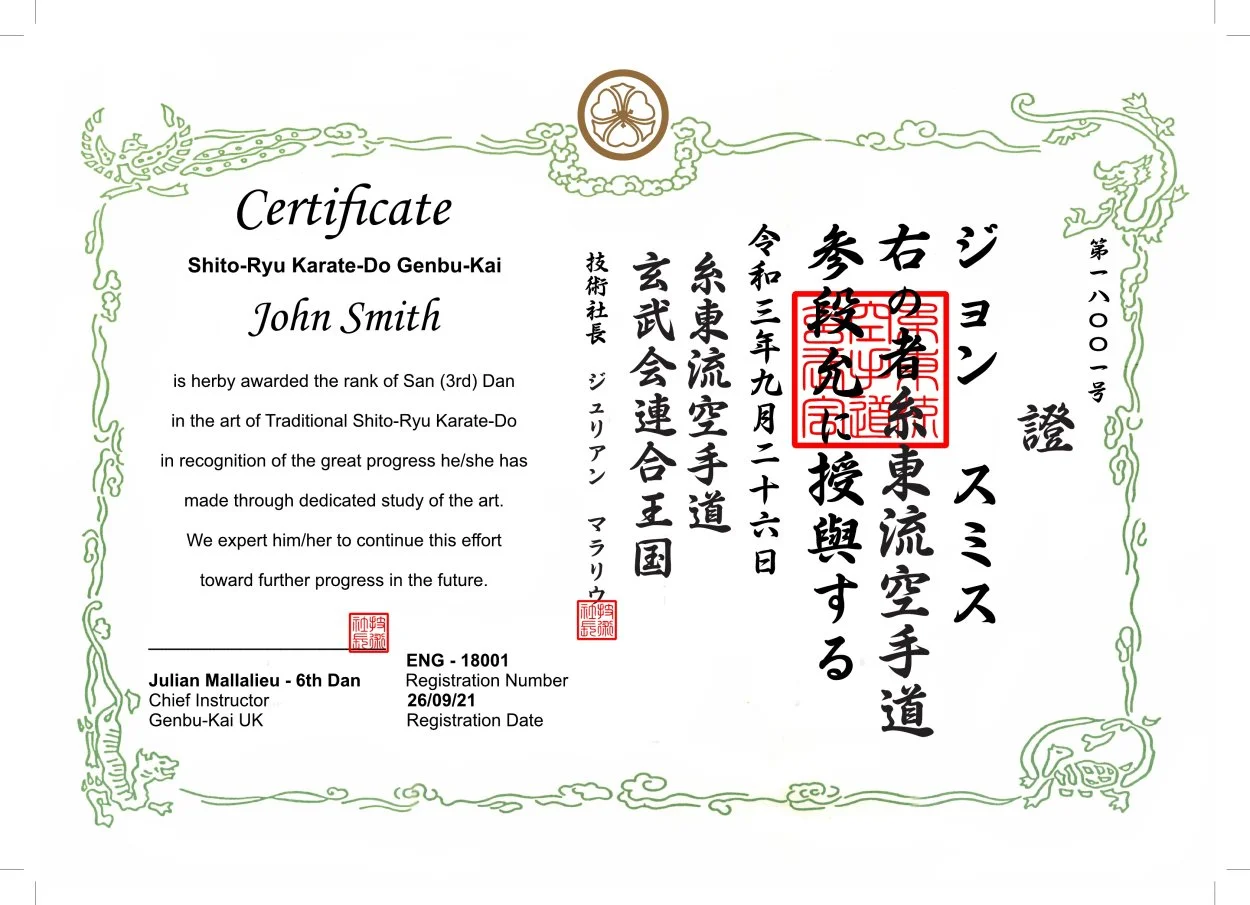
Tensho Font - Seal Script Font
Does anyone know if a Tensho or Seal script True Font File is available to download anywhere?
I see the question has been asked many years ago, but hopefully it is now available somewhere.
The seal scripts above are Shirafune (白舟), not Tensho (篆書).